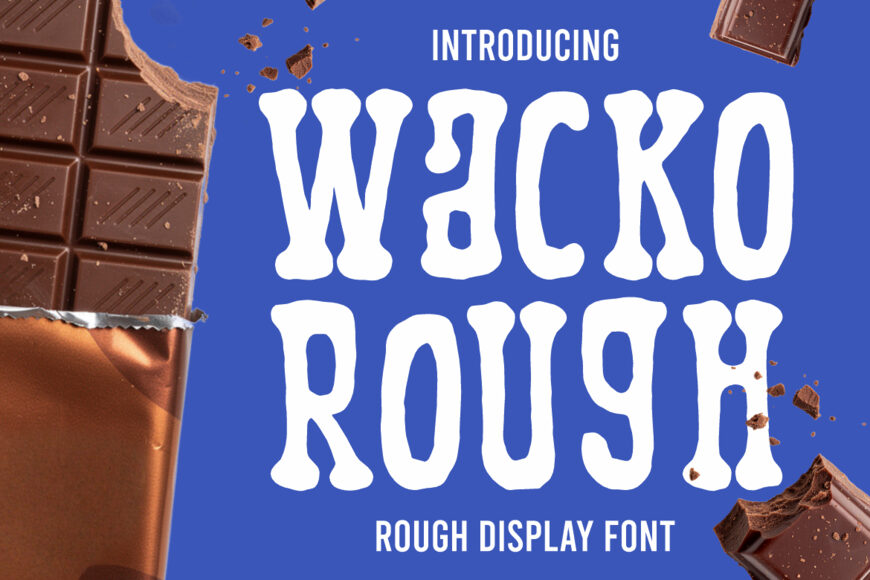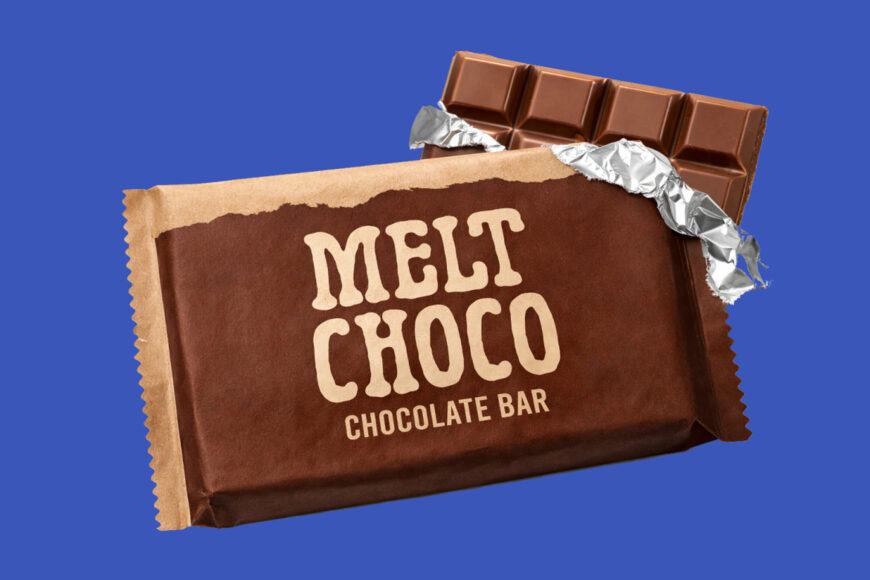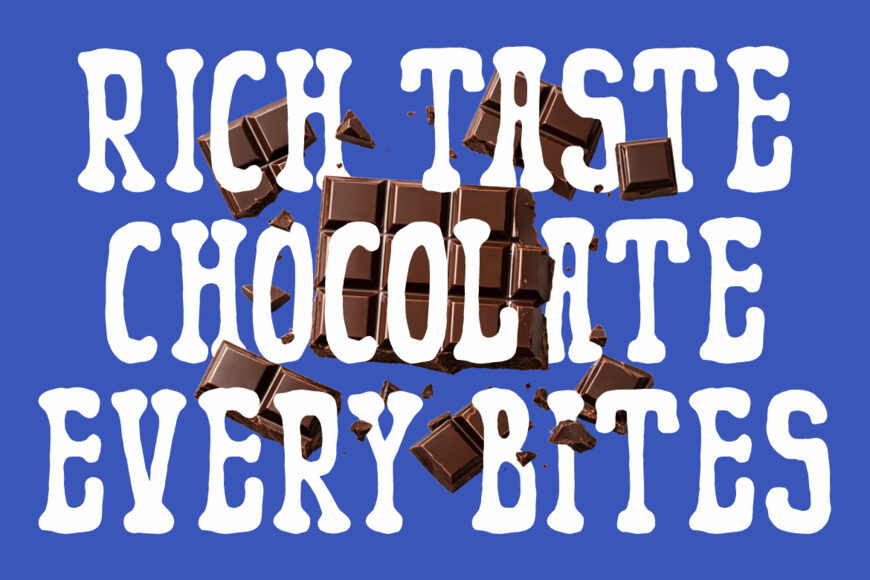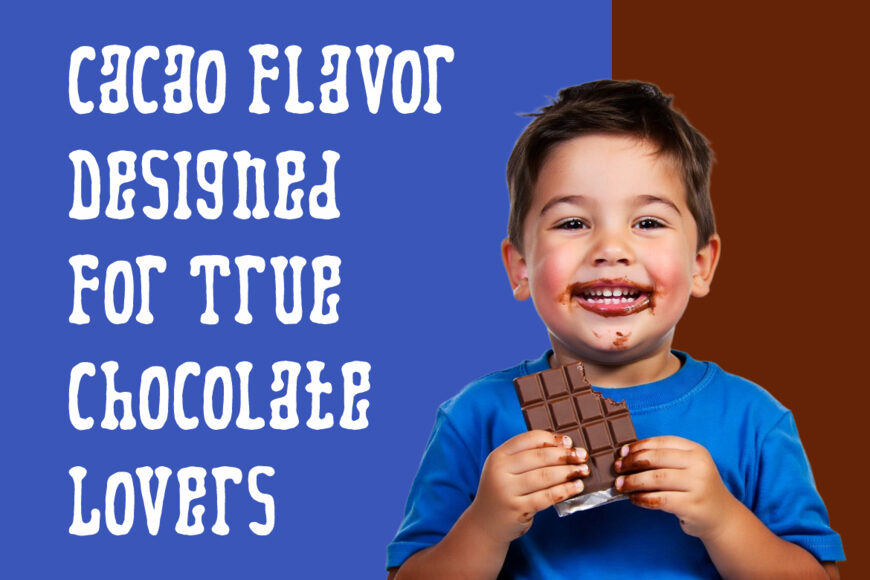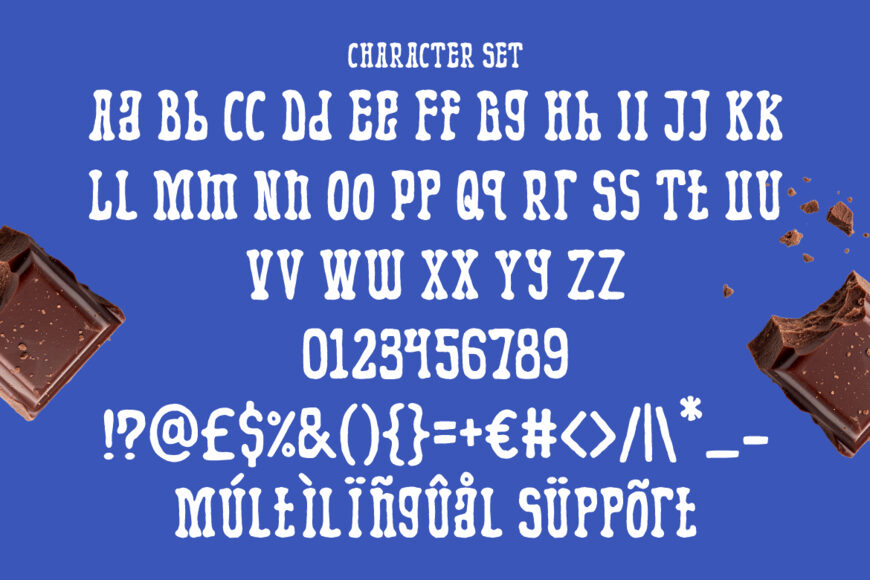
Wacko Rough, a Rough Fun Cartoon Typeface, brings chunky letters with bouncy curves and uneven edges. The shape feels playful, tasty, and expressive, while the rough cuts add a handmade food character.
Its tall, bold forms give strong impact for chocolate logos, candy branding, dessert packaging, bakery labels, and snack posters. This font also fits cookie boxes, sweet shop signs, kids treats, product stickers, menu titles, and social ads. Designers can use it for brands that need a warm, cheerful, and memorable food identity.